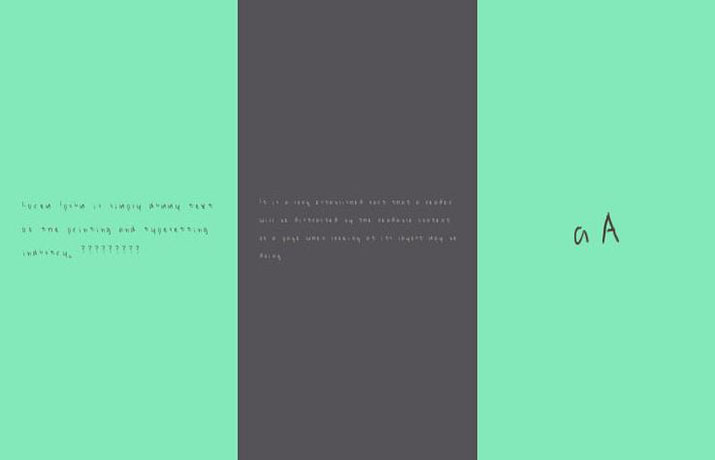
Calligraphr Regular Font is a handwriting script typeface with a randomization and natural look. It increases its beauty and adds natural flow throughout the typeface.
Its texture maintains uneven thin strokes, giving it a sweet look. It is workable for stylish and unique designs requiring a handwritten font.
This font is perfectly suited for a wide variety of projects, such as signature, stationery, logo, wedding, typography quotes, magazine or book covers, branding, packaging design, and more.
| Style: | Script, Handwritten, Typeface |
- Because of its incredibly cool texture, it can be used for a lot of amazing things, such as book covers, unique phrases, gaming graphics, classy cards, and product designs and packaging.
- Try it out on books, invites, birthday cards, books, news, posters, headers, letterhead, signs, banners, greeting/wedding cards, and more.